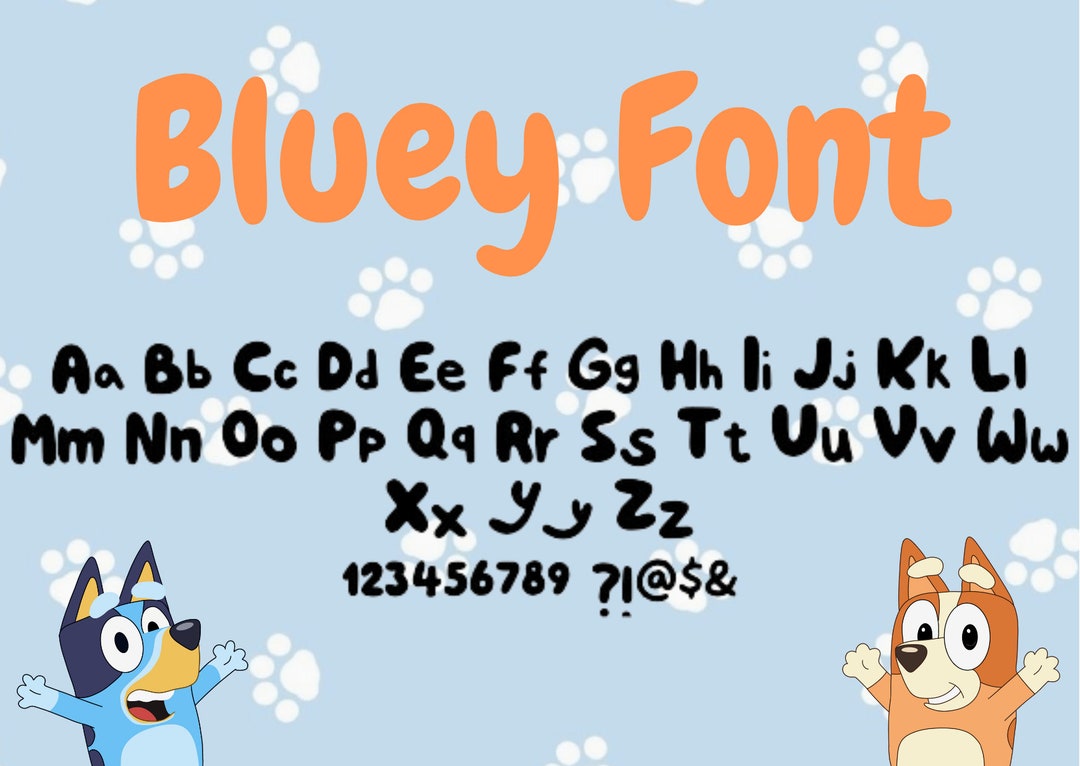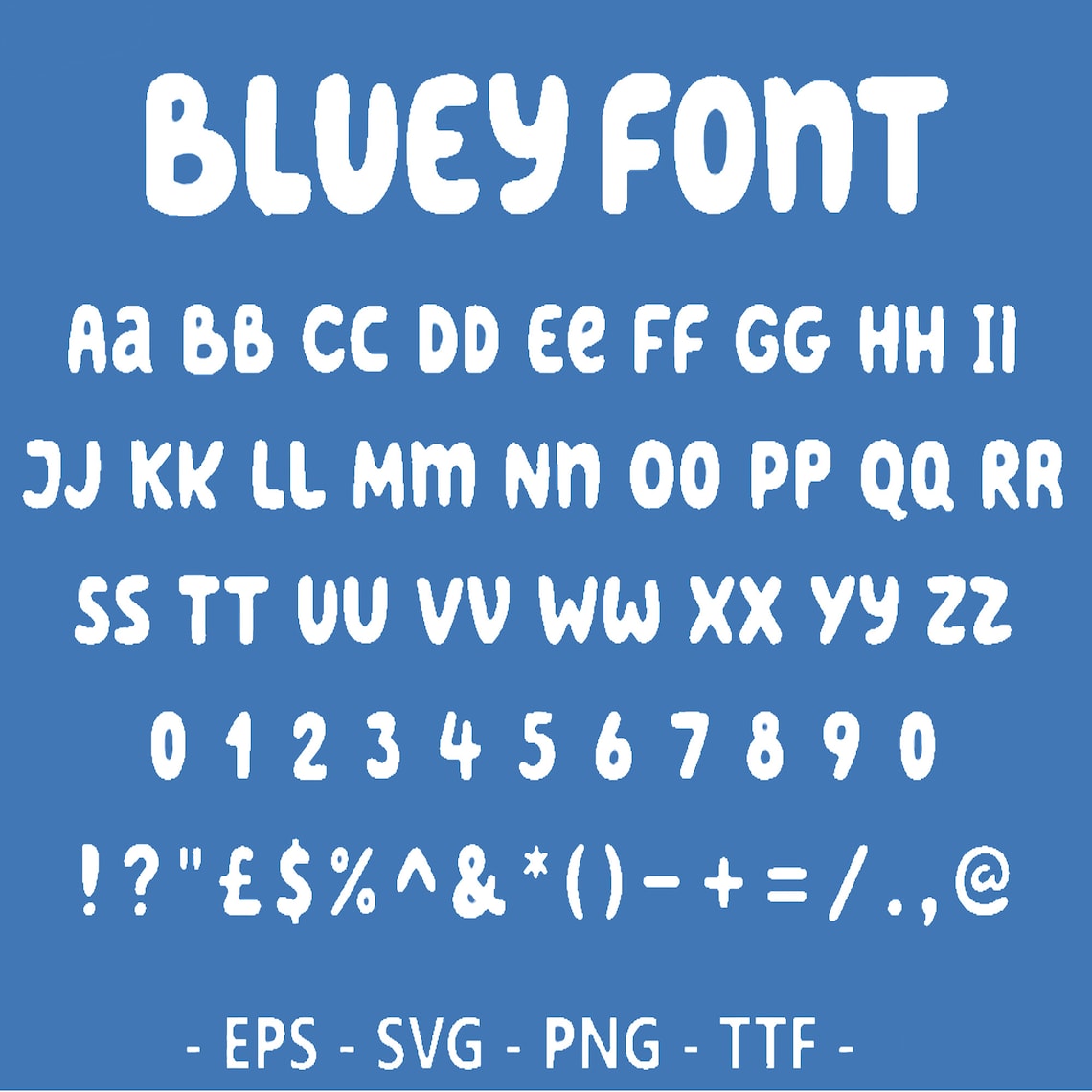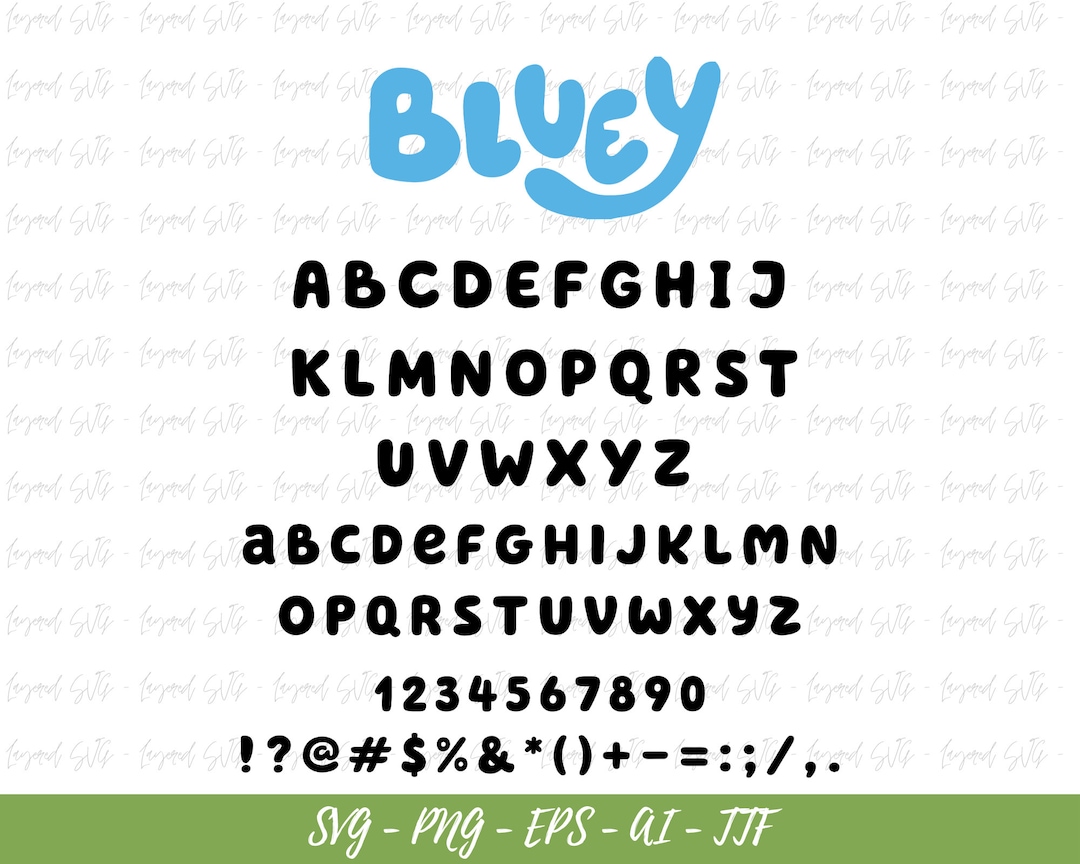
Bluey Font In Canva
Bluey Font In Canva - Want to create vibrant and captivating content for kids? Learn how to use the bluey font on canva, a playful and whimsical typeface. Unfortunately, the bluey font is not available in canva’s font library.
Unfortunately, the bluey font is not available in canva’s font library. Want to create vibrant and captivating content for kids? Learn how to use the bluey font on canva, a playful and whimsical typeface.
Unfortunately, the bluey font is not available in canva’s font library. Learn how to use the bluey font on canva, a playful and whimsical typeface. Want to create vibrant and captivating content for kids?
Unfortunately, the bluey font is not available in canva’s font library. Want to create vibrant and captivating content for kids? Learn how to use the bluey font on canva, a playful and whimsical typeface.
Unfortunately, the bluey font is not available in canva’s font library. Learn how to use the bluey font on canva, a playful and whimsical typeface. Want to create vibrant and captivating content for kids?
Learn how to use the bluey font on canva, a playful and whimsical typeface. Unfortunately, the bluey font is not available in canva’s font library. Want to create vibrant and captivating content for kids?
Want to create vibrant and captivating content for kids? Unfortunately, the bluey font is not available in canva’s font library. Learn how to use the bluey font on canva, a playful and whimsical typeface.
Unfortunately, the bluey font is not available in canva’s font library. Want to create vibrant and captivating content for kids? Learn how to use the bluey font on canva, a playful and whimsical typeface.
Learn how to use the bluey font on canva, a playful and whimsical typeface. Unfortunately, the bluey font is not available in canva’s font library. Want to create vibrant and captivating content for kids?
Learn how to use the bluey font on canva, a playful and whimsical typeface. Want to create vibrant and captivating content for kids? Unfortunately, the bluey font is not available in canva’s font library.
Want to create vibrant and captivating content for kids? Learn how to use the bluey font on canva, a playful and whimsical typeface. Unfortunately, the bluey font is not available in canva’s font library.
Want To Create Vibrant And Captivating Content For Kids?
Learn how to use the bluey font on canva, a playful and whimsical typeface. Unfortunately, the bluey font is not available in canva’s font library.